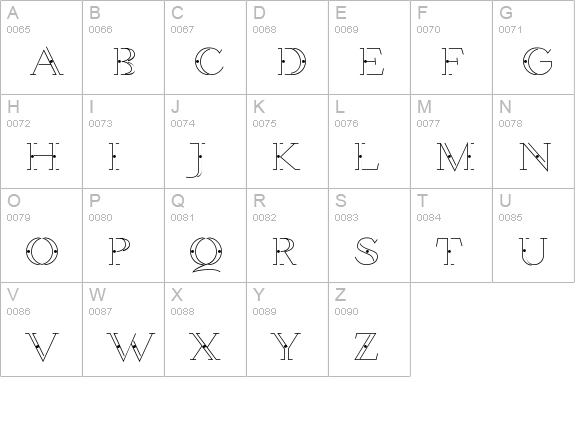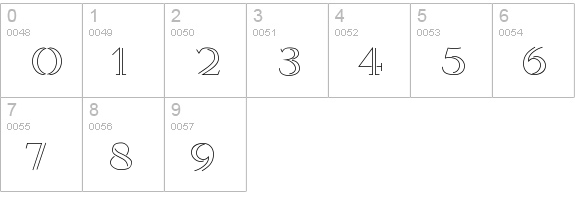
Wetetque Plain Font Details
Wetetque Plain is a sleek and modern font that effortlessly blends elegance with simplicity. Its clean lines and balanced proportions make it perfect for a wide range of design projects. Whether you are creating a logo, designing a website, or crafting a professional-looking document, this versatile font is sure to elevate your work to new heights. With its timeless appeal, Wetetque Plain exudes a sense of professionalism and sophistication. Its carefully crafted letterforms are easy to read, making it suitable for both headlines and body text. This font's understated beauty will captivate your audience and leave a lasting impression. What makes Wetetque Plain even more appealing is that it is available for free download at FontsMarket.com. This means that you can enjoy all the benefits of this stunning font without breaking the bank. Whether you are a seasoned designer or just starting out, having access to high-quality fonts like Wetetque Plain is essential for creating visually stunning and impactful designs. Don't miss out on this opportunity to enhance your design toolbox with Wetetque Plain. Download it for free today at FontsMarket.com and experience the endless possibilities that this font offers. Its versatility, elegance, and availability make it a must-have for any designer looking to make a statement.